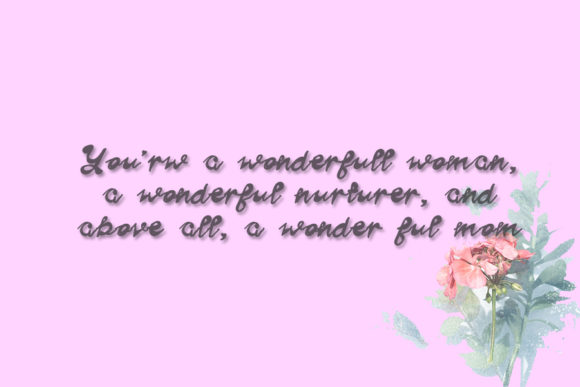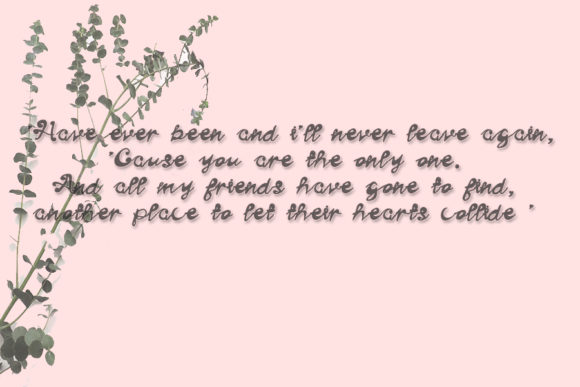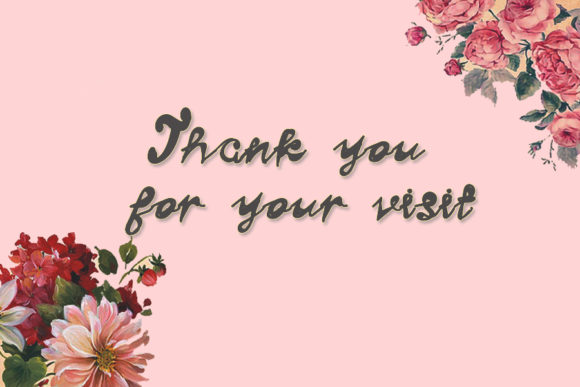
Mother Language Font
About Mother Language Font
Mother Language is a unique, whimsical and quirky handwritten font. It looks beautiful on a variety of designs requiring a personalized style, such as wedding invitations, thank you cards, weddings, greeting cards, logos and so on.